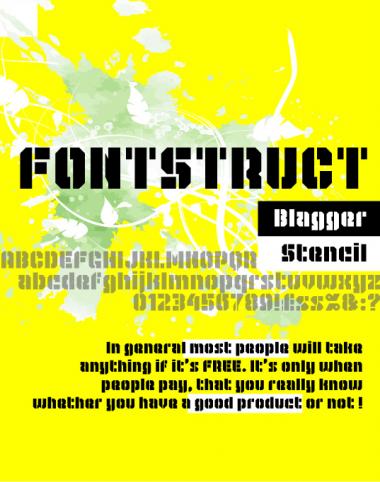
I love it, especially the uppercase! Not sure about 6 and 9, though.
Top notch stenciling.
Seems to be a bit of a trend for stenciling at the mo.
I've slightly changed the original 6 & 9 and also put two alternatives.
{ = 6
} = 9
hope this is what you envisioned.
I've also change the 'Y'.
The original has now moved * = 'Y'
Great font djnippa.
top of the pops!
Hi,djnippa! Good font. It's very similar to ProLamina Stencil in my Fonstruct.
i agree in your main-'s'-solution, that's the one i like the best
you are right: the T i suggested does not fit ...
Did you already try a T like this?
Thanks. I've added the 'T' you suggested under '\'. I think it looks too black though.
Wow it is. Great minds. Although my original NCD Blagger was created one day before yours on Sat, 24th January, 8:37 AM 2009.
I really like yours, just voted it a 10. Why it didn't get Top Pick I'll never know.
My original NCD Blagger was derived from my
NCD Black Square II Condensed
blagger is another strike ;)
and blagger stencil, too!
Love this but i got to say, that capital O with stroke is not going to work as an stencil ;)
I don't understand -
There is no stroke on the capital 'O'!
i mean this one,
this would work as a stancil...
Thanks for your observation but I'm afraid you're wrong.
That would still work as a stencil, you should try it out.
THE FULL EUROPEAN CHARACTERS HAVE NOW BEEN ADDED.